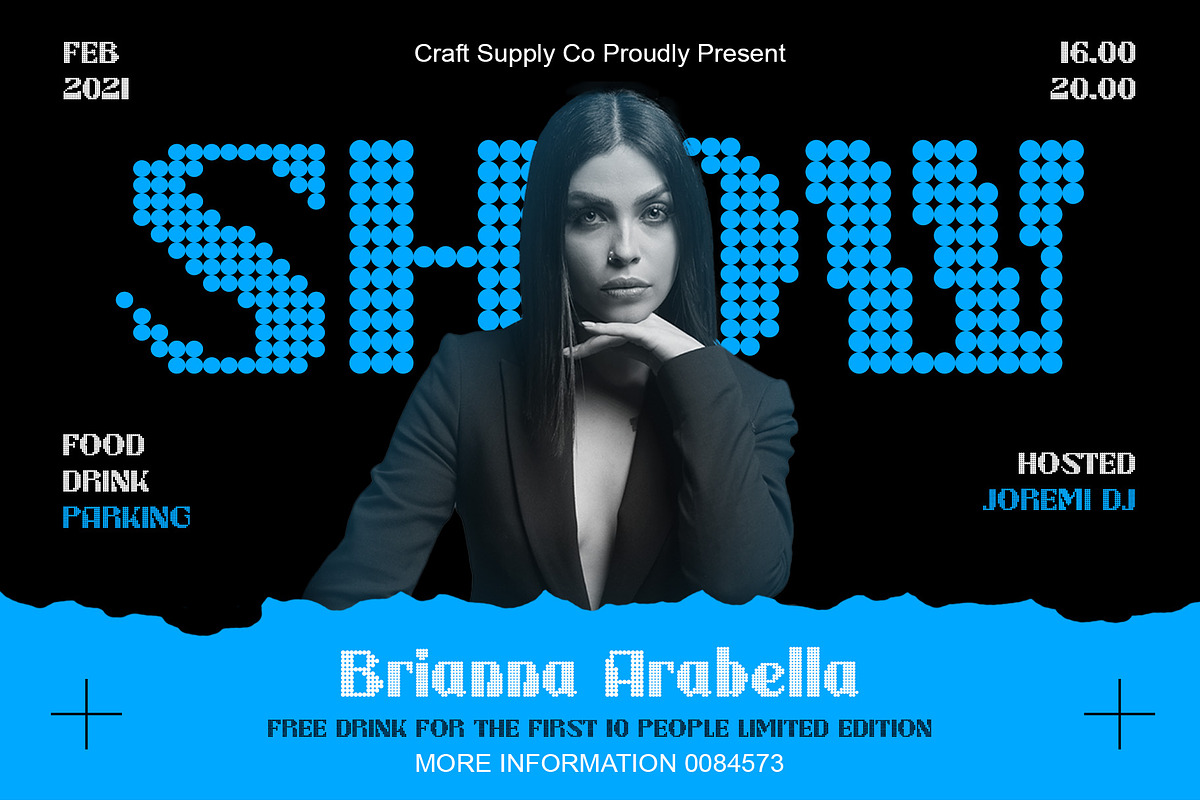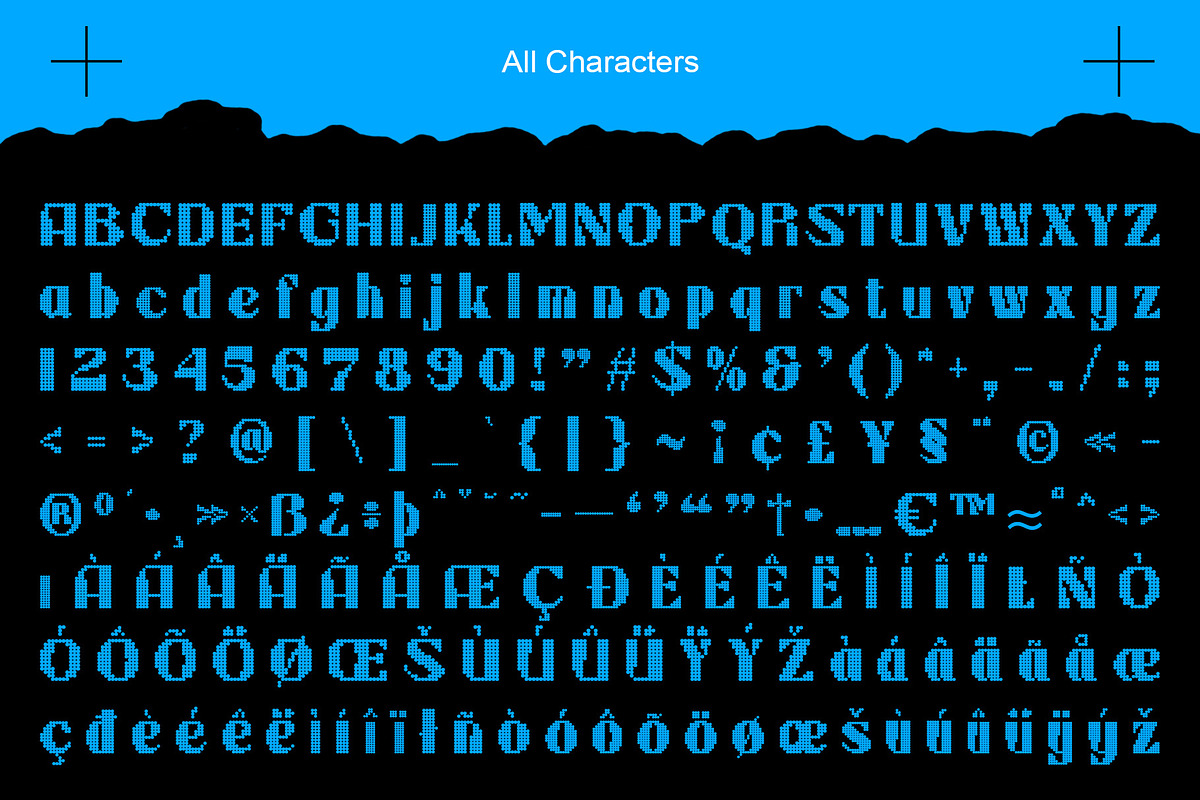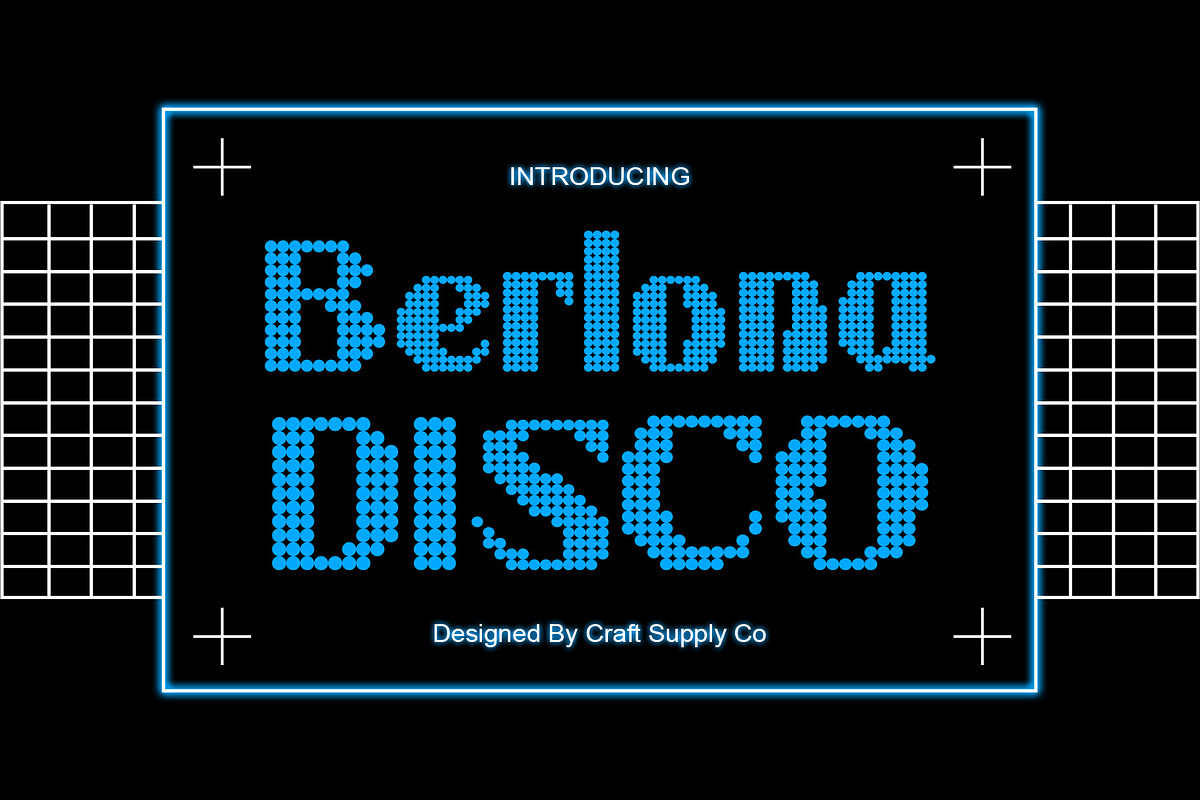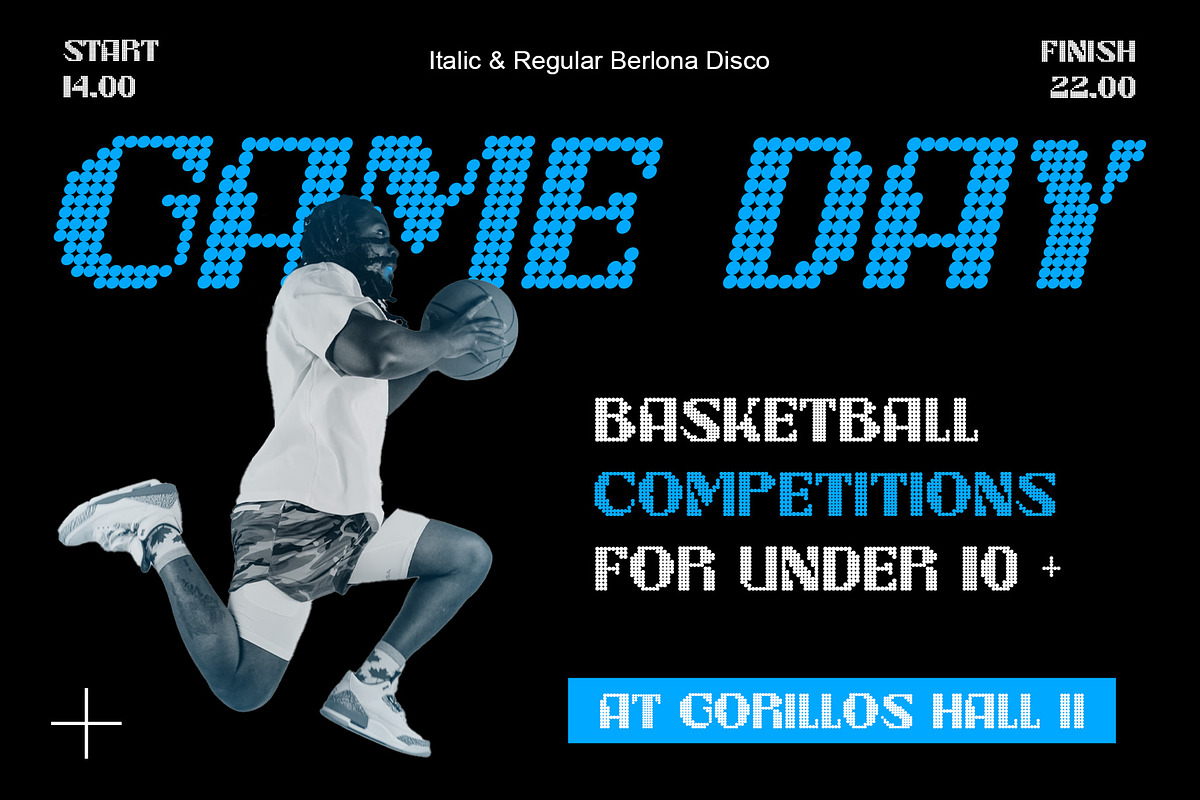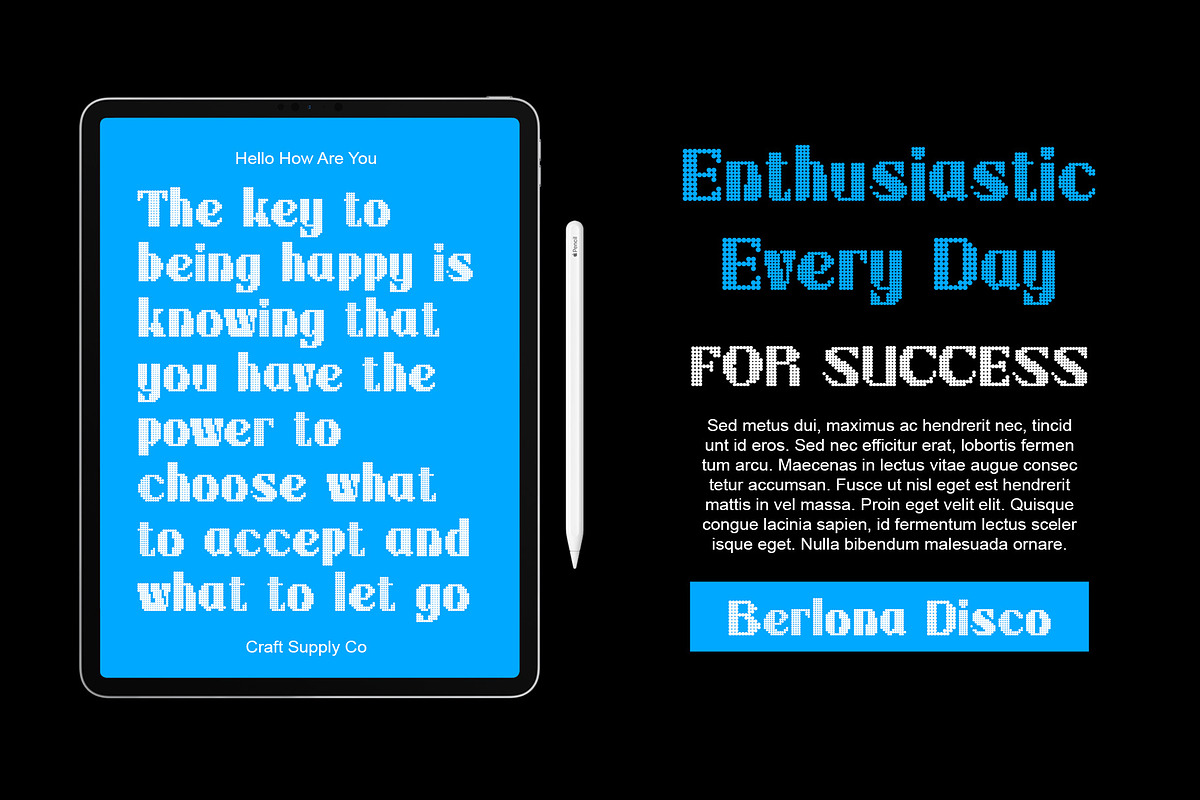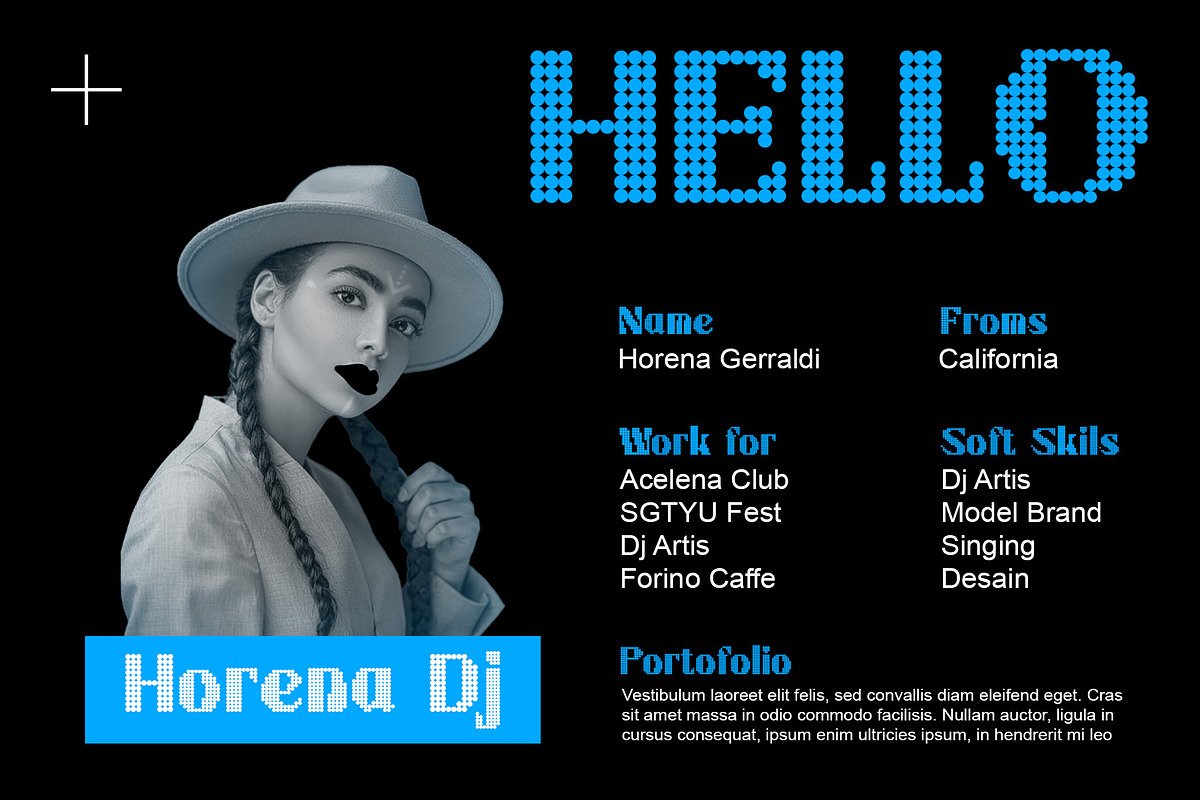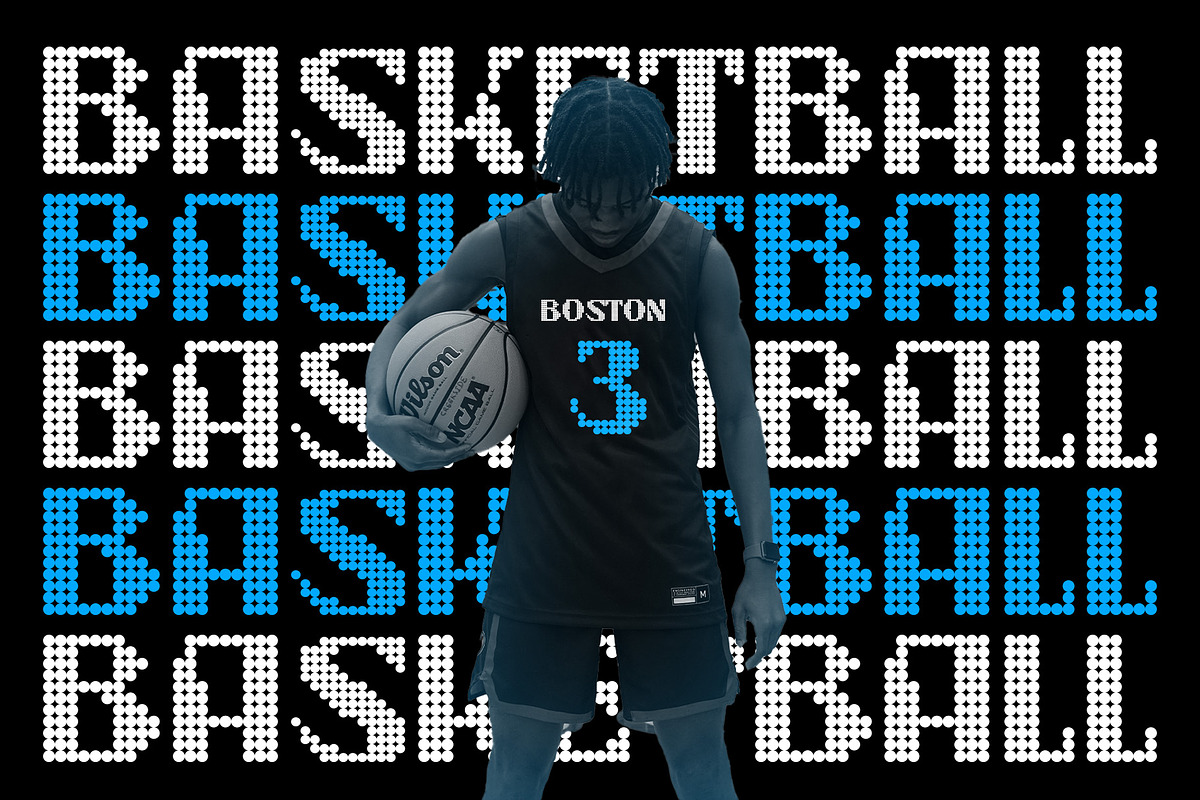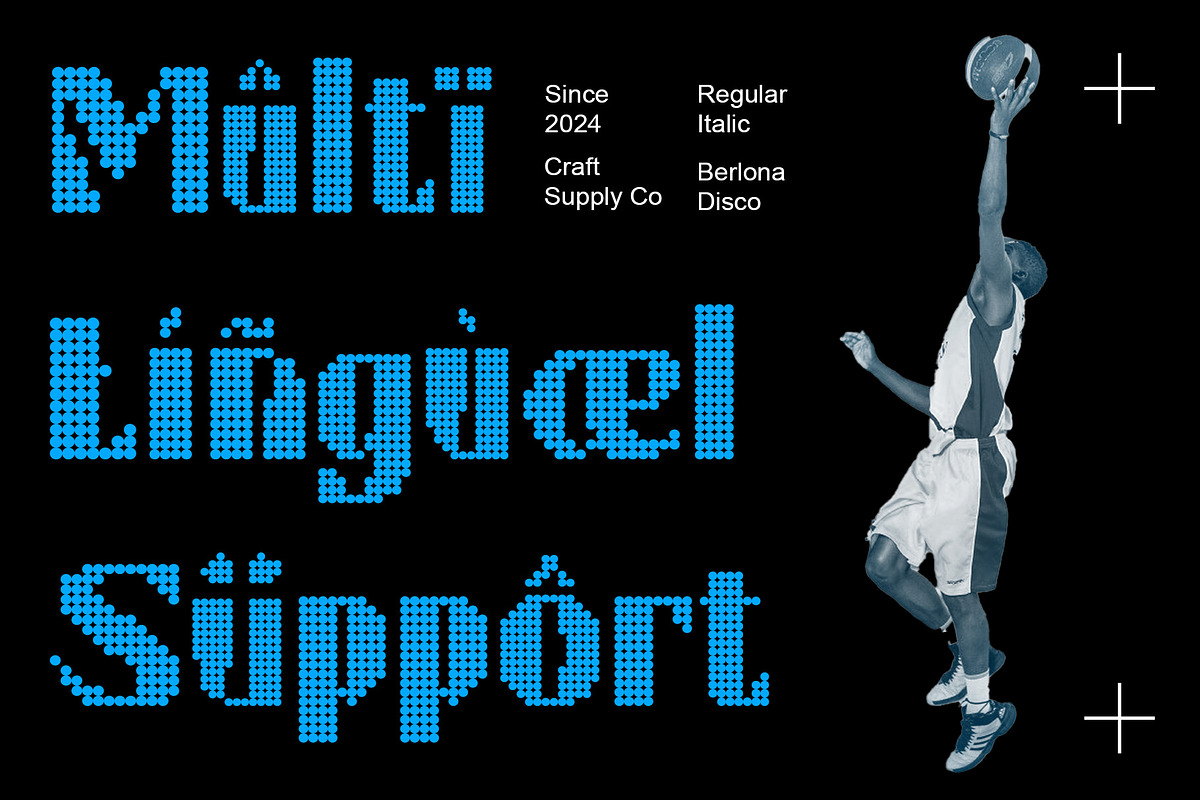
Berlona Disco
Berlona Disco: Bringing Disco Vibes to Display Typography
Bold Sans Serif Design Berlona Disco features a bold sans serif style, commanding attention with its strong, confident presence. Each letter is crafted to stand out prominently in any display setting.
Dynamic Dot Style Effects Infused with dynamic dot style effects, This font exudes the lively energy of disco aesthetics. The dots add a sense of movement and rhythm, capturing the essence of the disco era in typography.
Disco-inspired Nuances With its disco-inspired nuances, This font channels the spirit of the dance floor into your designs. It’s perfect for capturing the vibrant and lively atmosphere of disco-themed events and projects.
Ideal for Vibrant Displays Tailored for vibrant displays, This font shines in various contexts, from event posters to digital advertisements. Its bold and playful demeanor ensures that your message grabs attention and leaves a lasting impression.
Where Boldness Meets Disco Flair This font stands out as a bold and dynamic choice for display typography. Its combination of bold sans serif design and lively dot style effects brings the disco era to life, making it the perfect choice for vibrant and eye-catching displays.